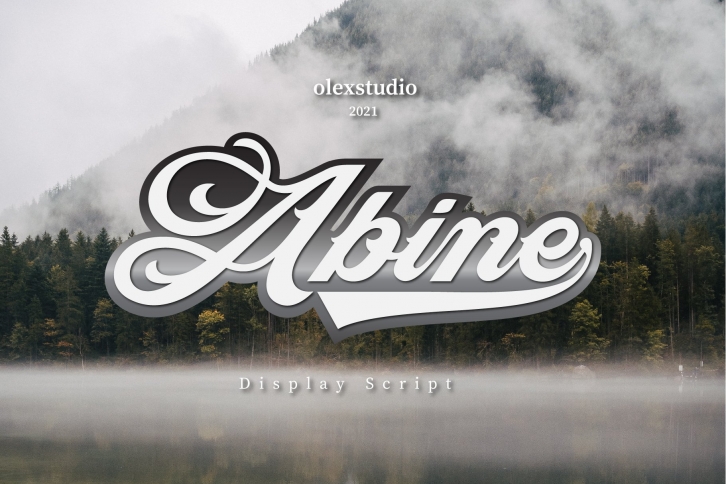
ABINE is a beautiful font that was designed by OlexStudio. It's a great choice for designers and creatives who need such a font. It was released on November 4, 2021 and the file size is 17.89 MB. ABINE may give a more youthful, expressive and casual look to your project. It is a very beautiful, refined, elegant, and high-quality font.